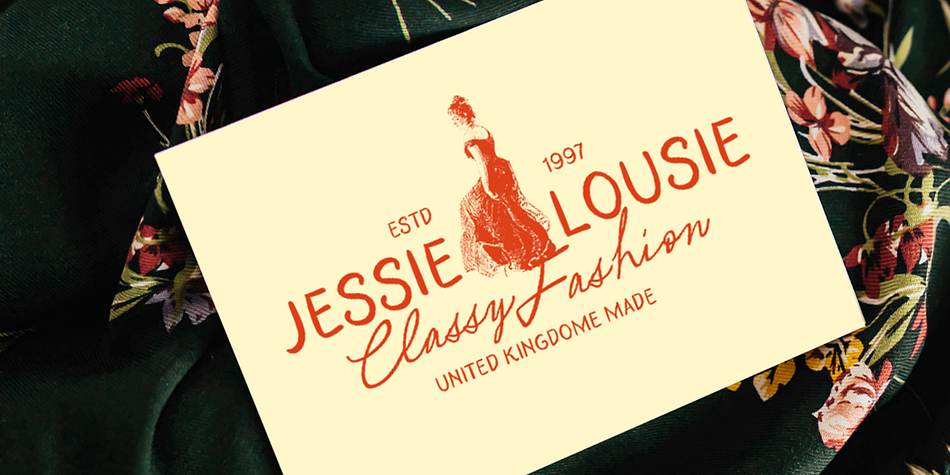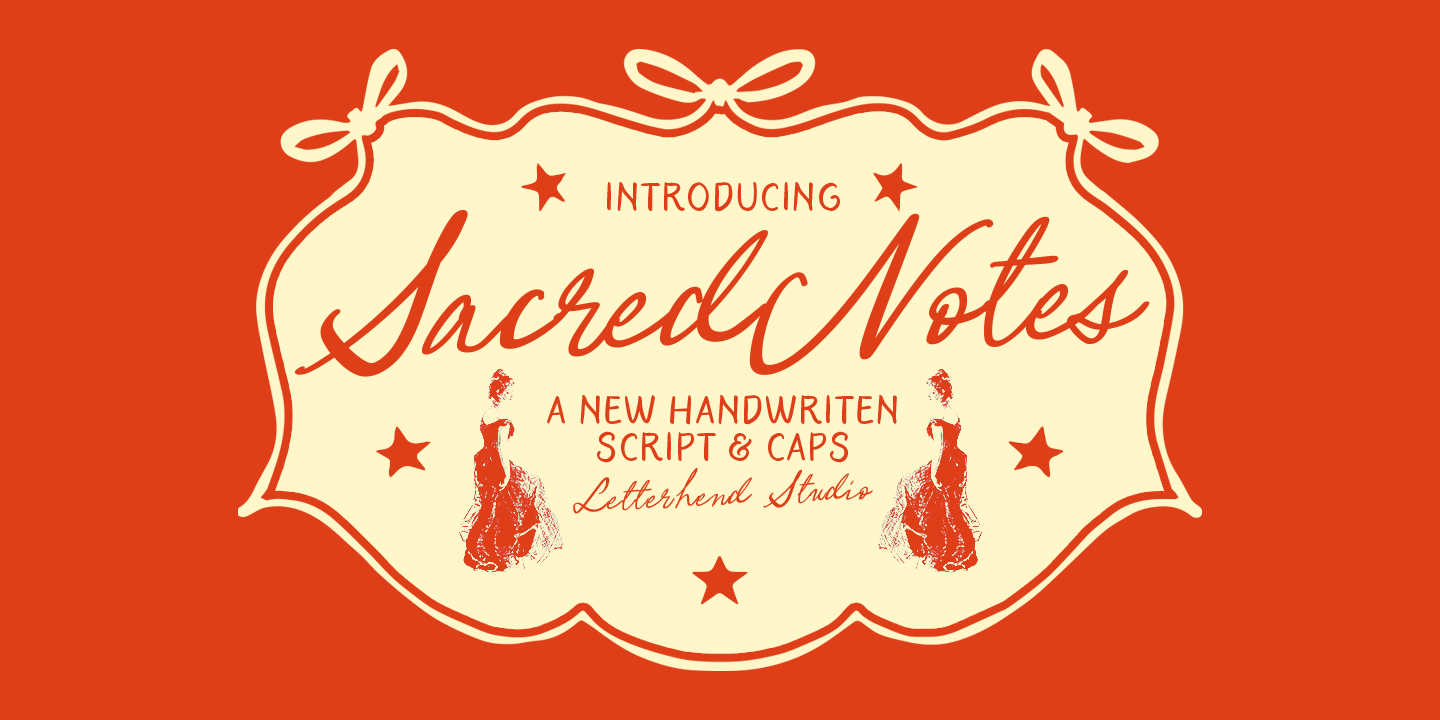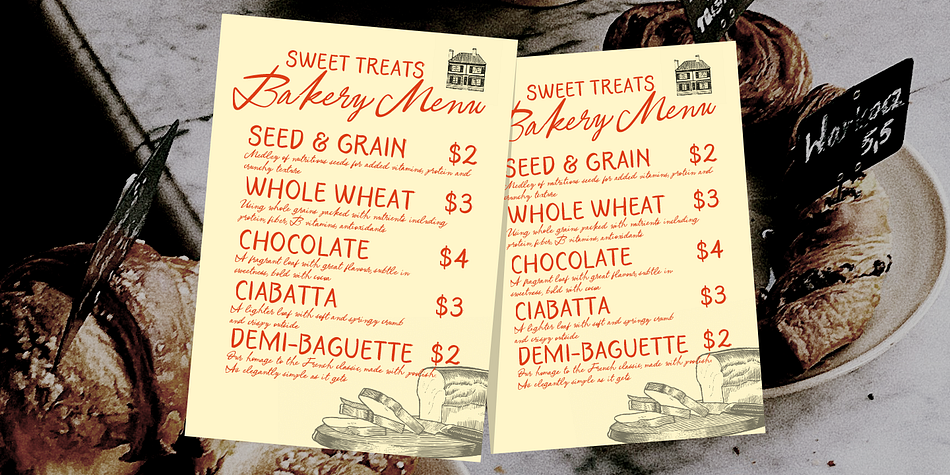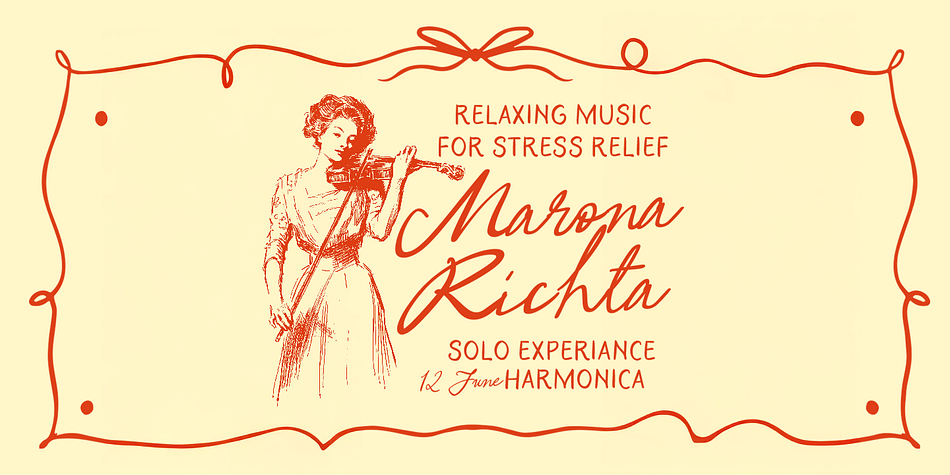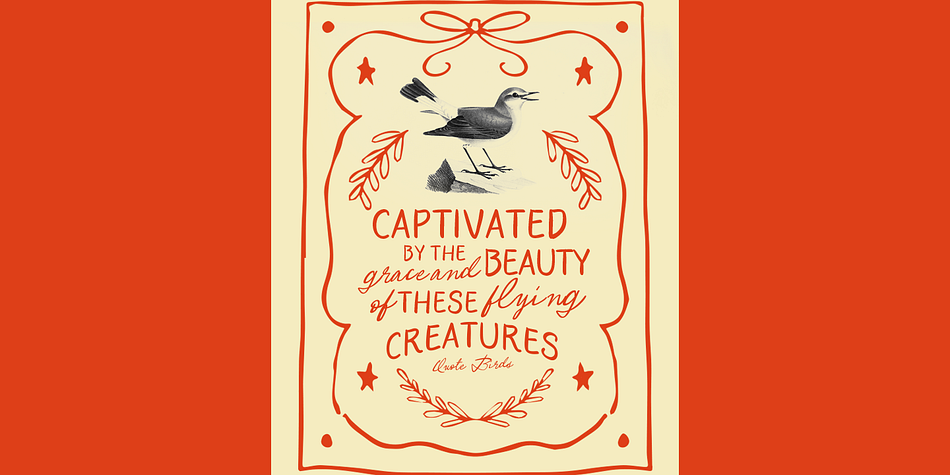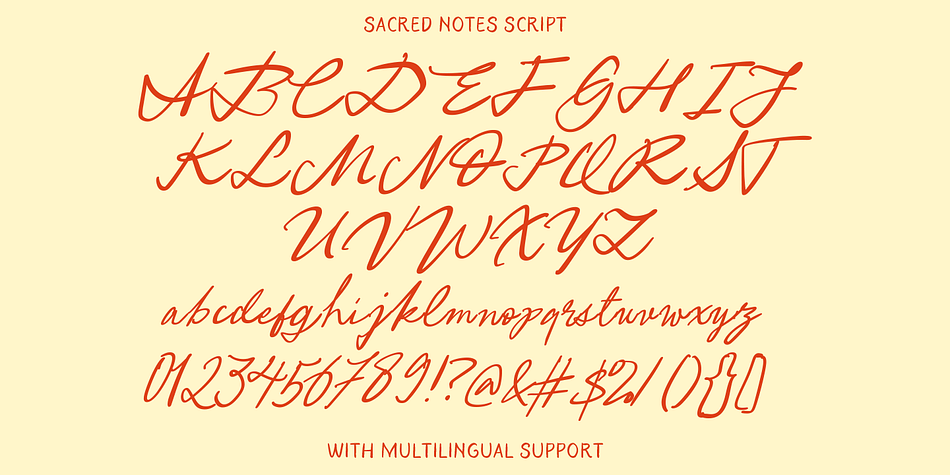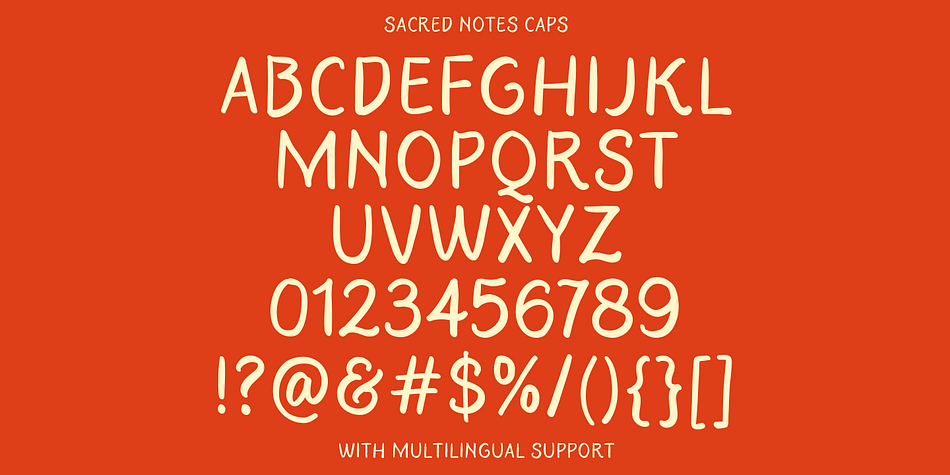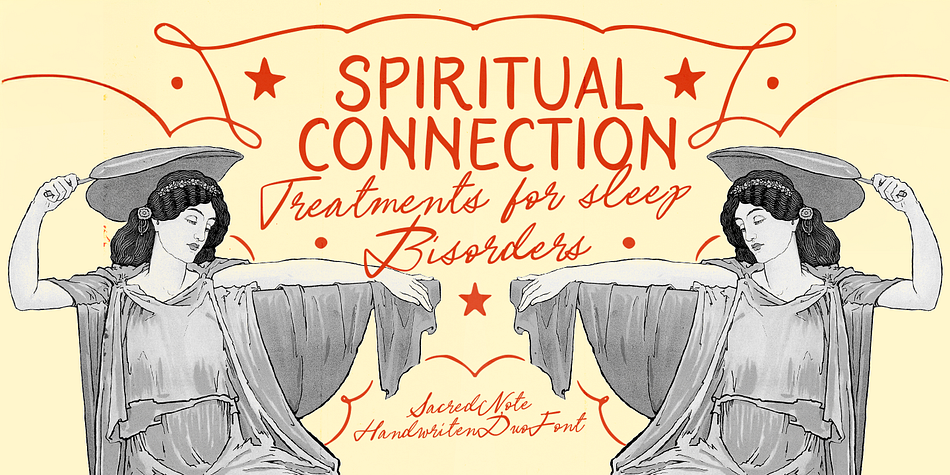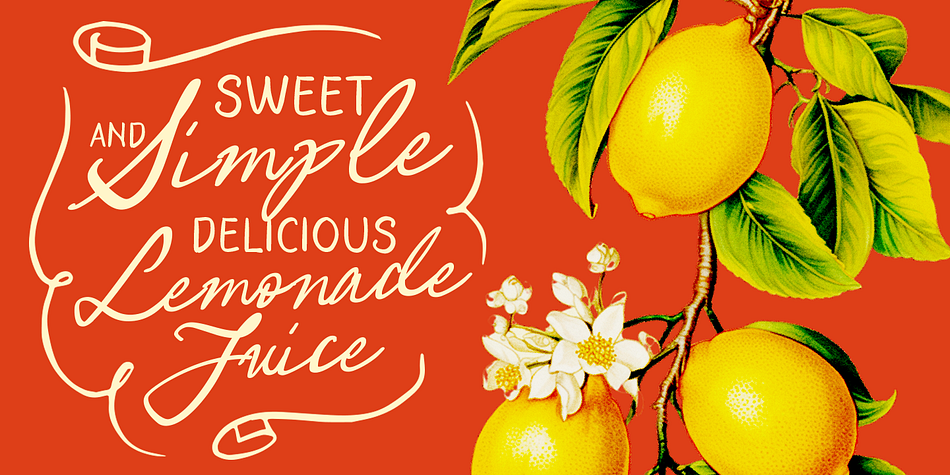
Sacred Notes
Designed by Hendry Juanda, Sacred Notes is a sans serif font family. This typeface has two styles and was published by Letterhend Studio.
Sacred Notes is a charming handwritten font duo that combines a flowing script style with uppercase sans-serif caps, exuding a nostalgic, romantic feel. The script typeface features elegant, sweeping letterforms that feel personal and vintage, while the all-caps complement provides a clean, playful contrast. The overall aesthetic is delicate yet expressive—perfect for invitations, packaging, branding, greeting cards, and vintage-themed designs.